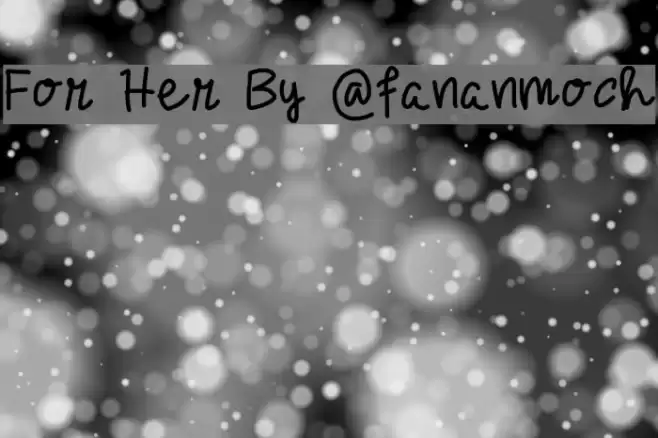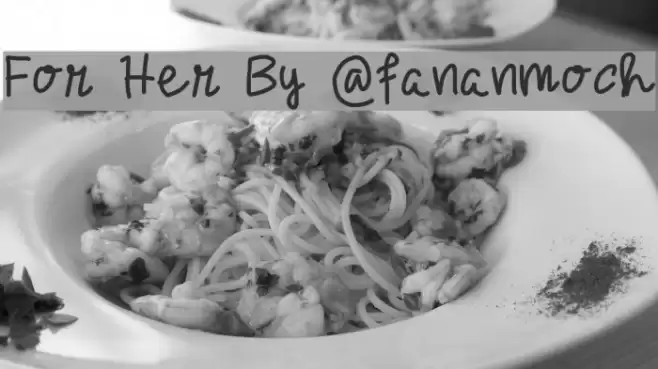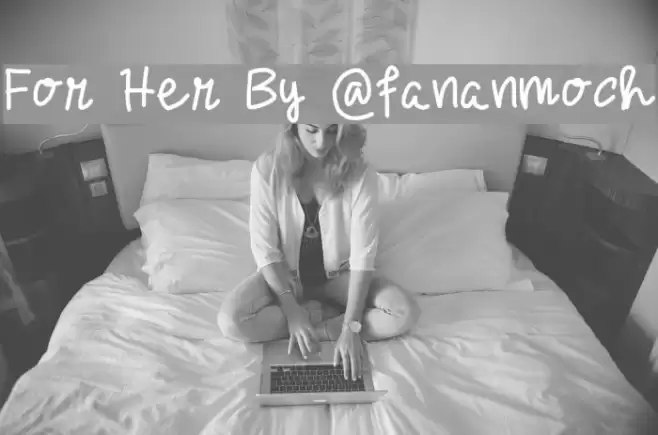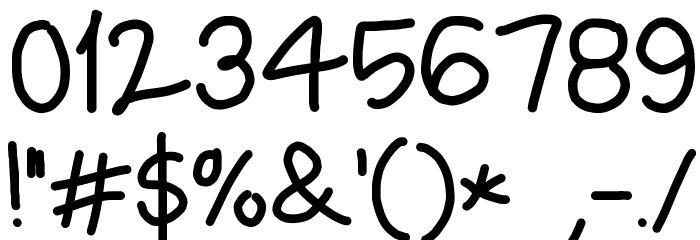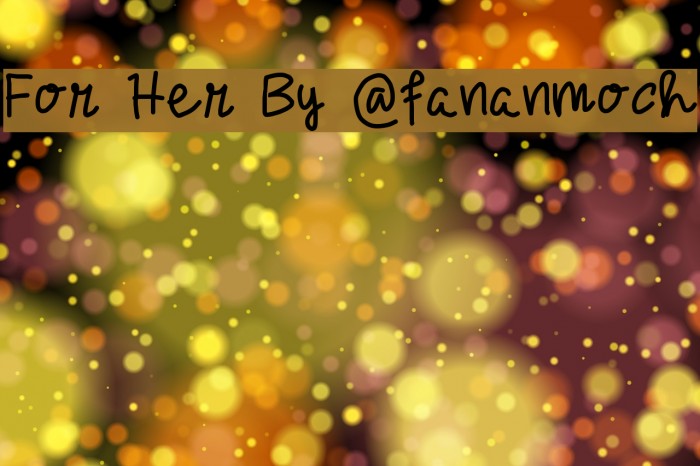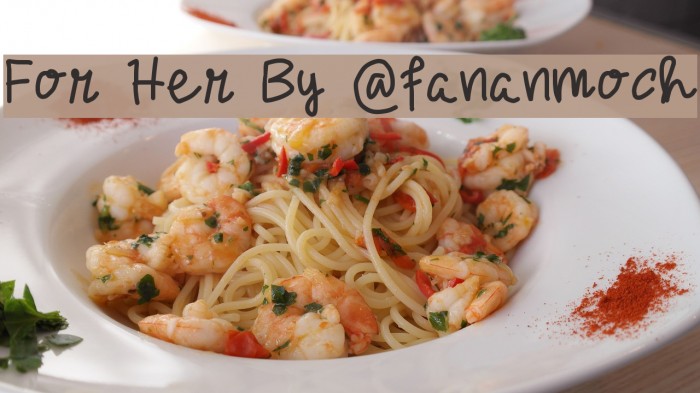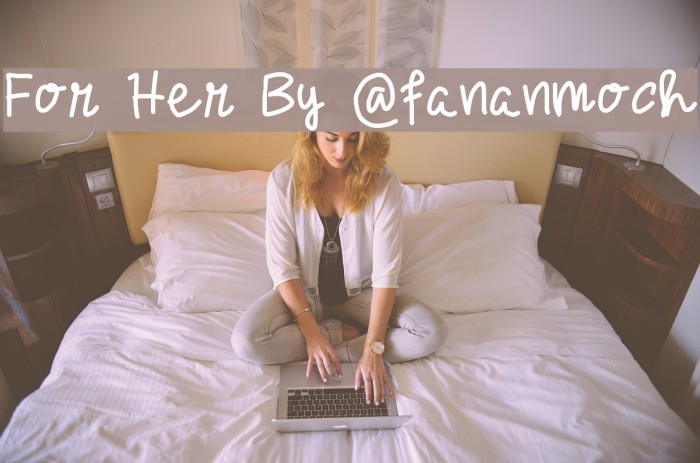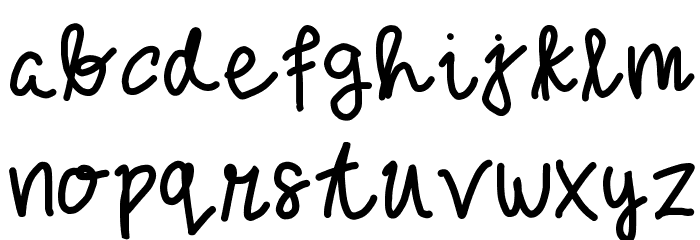
For Her By @fananmoch Font
For Her By @fananmoch Description
This playful and energetic font features a handwritten style with a casual, friendly appearance. The letters are slightly slanted, giving a sense of movement and dynamism. Uppercase and lowercase characters are well-balanced, with a consistent stroke width that maintains readability. The numbers and special characters follow the same lively style, making the font versatile for various uses. The overall design is approachable and informal, perfect for projects that require a personal touch.
A playful handwritten font with a casual and friendly style from Handwritten fonts.
- Proposed Projects: Ideal for greeting cards, invitations, personal branding, and social media graphics.
- Overall Style: Casual
- Use Case: Headlines, Informal text, Personal projects